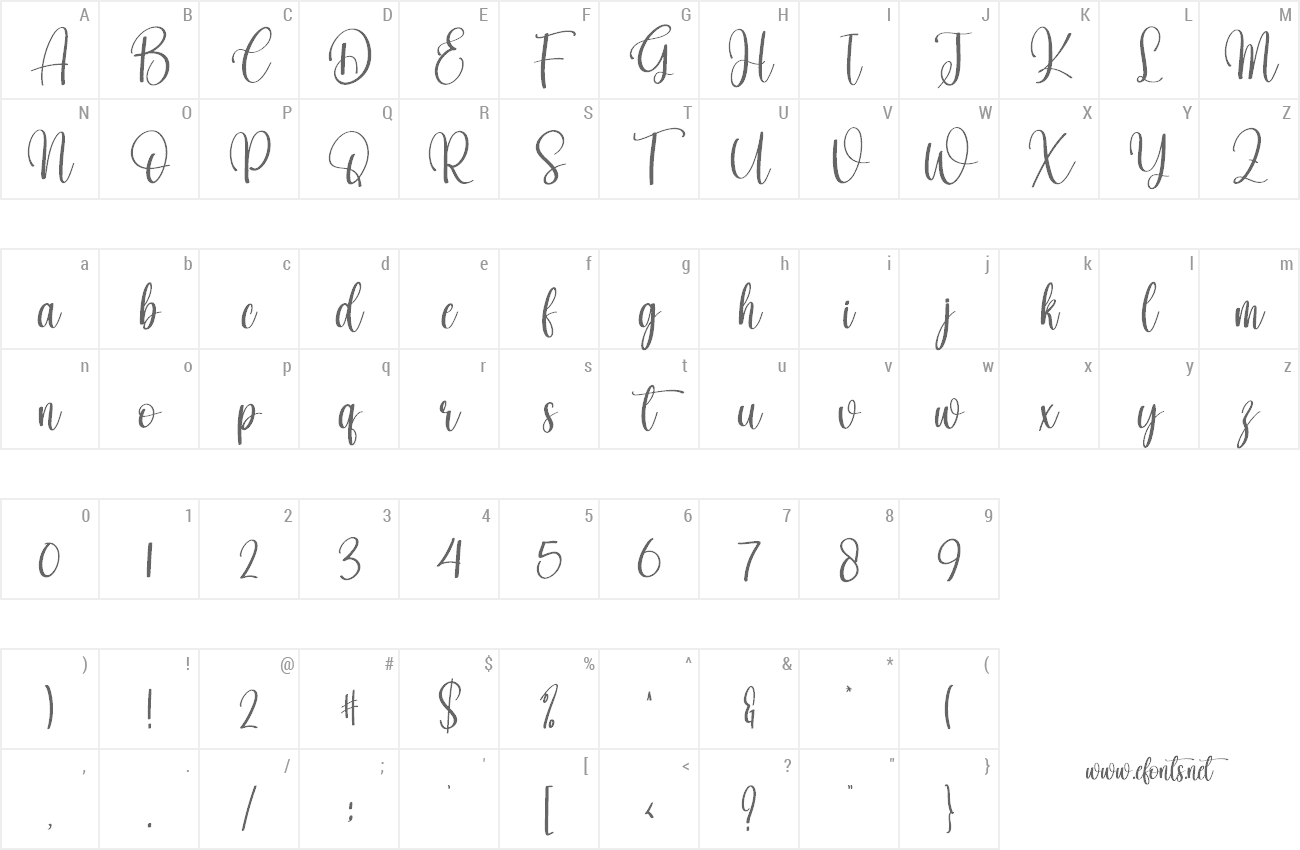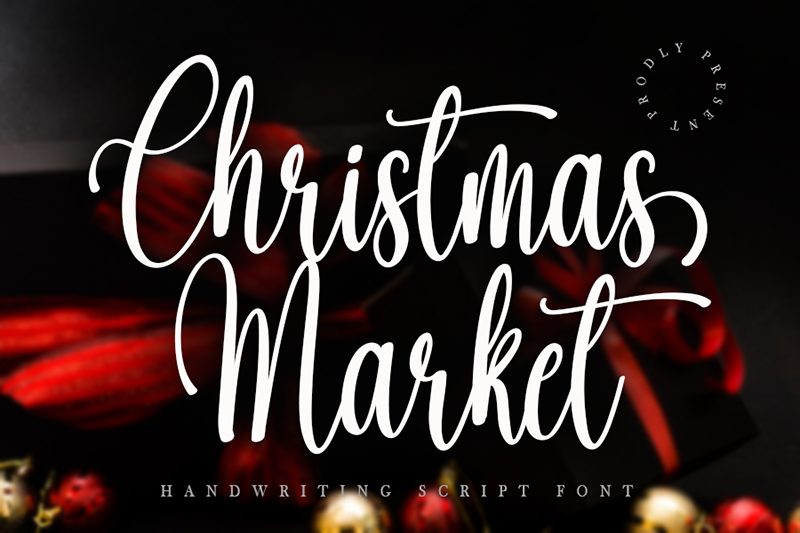
DETAILS This font retains a classy calligraphic influence while feeling contemporary and fresh. This versatility will attract a wide range of creative ideas, from letterheads and titles to stationery. _________________________________________________________________________ WARNING!!! By installing or using this font, you agree to the Product Use Agreement: - This font has the FULL VERSION and is for PERSONAL USE ONLY. NO COMMERCIAL USE! - If you need a CUSTOM PERMISSION or COMPANY LICENSE, please visit: https://creativewritting.com/product/61beautiful-lenttering/ or click the link below: www.creativewritting.com _________________________________________________________________________ Attention : It is forbidden to use this font for commercial purposes or for profit without the permission of the author / admin, without knowing that using this font without the permission of www.creativewritting.com will be penalized 5x the specified price. |